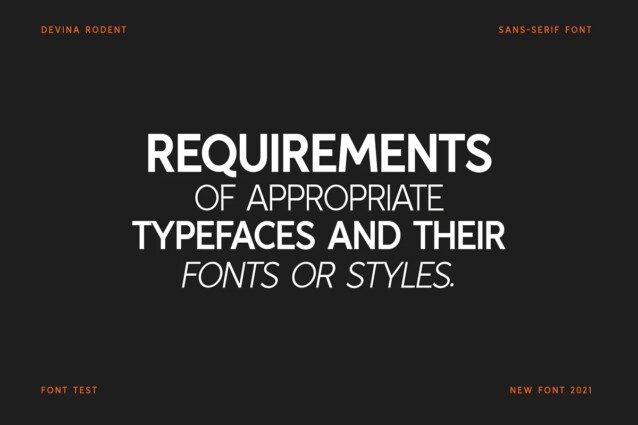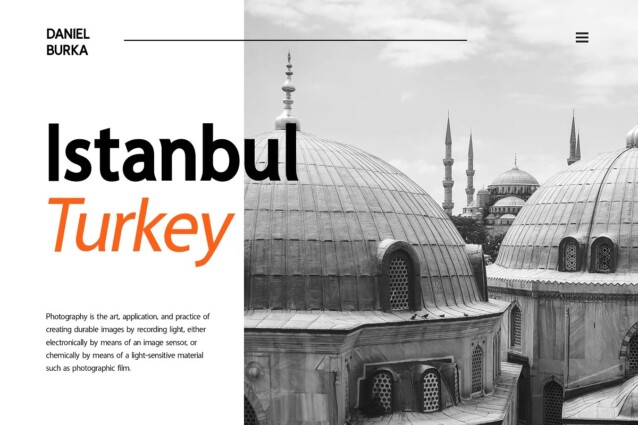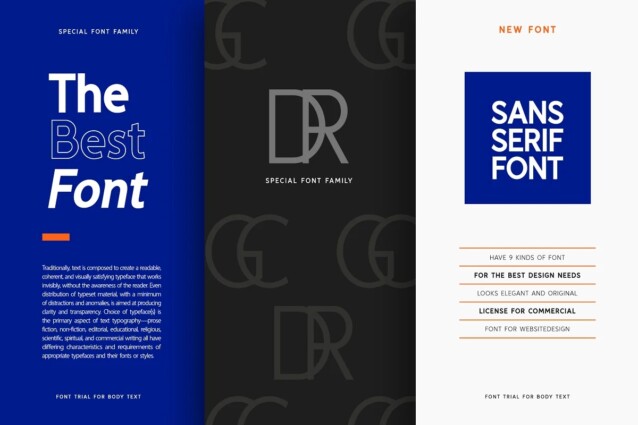
Devina Rodent Font Family
Devina Rodent Font is a type of sans-serif font that has a simple character and clean geometric shapes, with a lack of ornament. This font is ideally suited for a wide variety of projects, such as signature, stationery, logo, wedding, typography quotes, magazine or book covers, website headers, clothing, branding, packaging design, and more. Also, fashion-related branding or editorial design displays both masculine and feminine qualities.